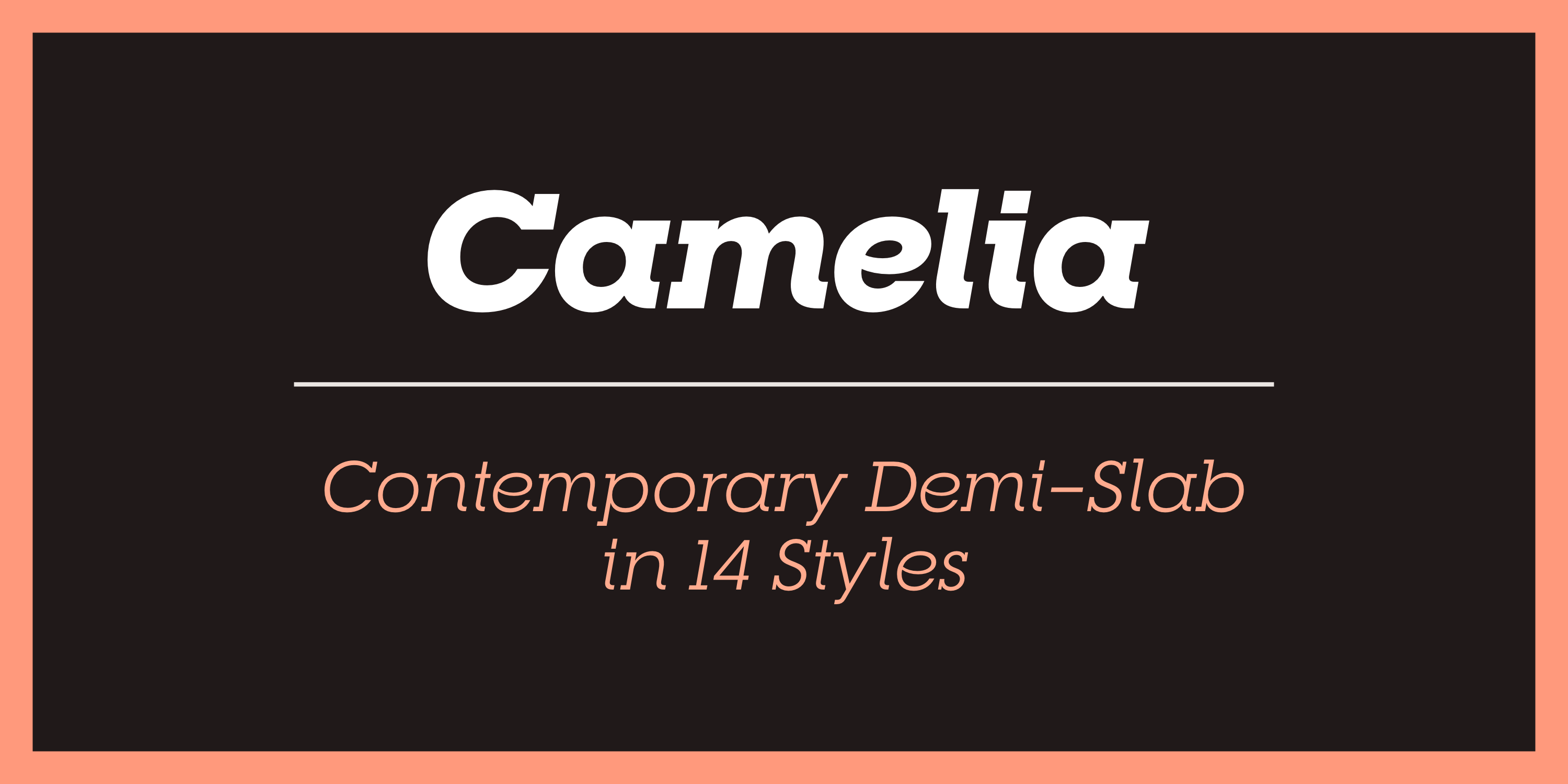
Elegant, stylish, and full of sophistication, RNS Camelia Font Free Download is a beautiful serif typeface designed to bring refinement and class to any design project. Perfect for branding, logos, editorial layouts, invitations, and high-end packaging, this font adds a touch of luxury and timeless style.
With its graceful letterforms, balanced proportions, and elegant serifs, RNS Camelia strikes a perfect balance between modern and classic, making it suitable for a wide range of creative applications. Whether you're designing for a luxury brand, creating an upscale event invitation, or working on a chic editorial layout, this font ensures your typography makes a lasting impression.